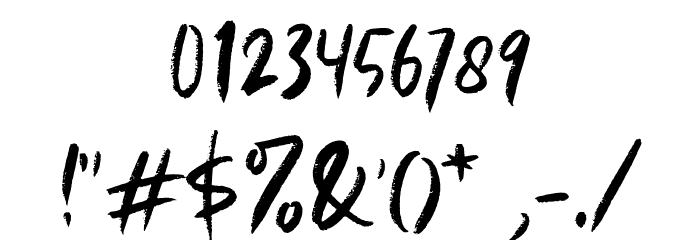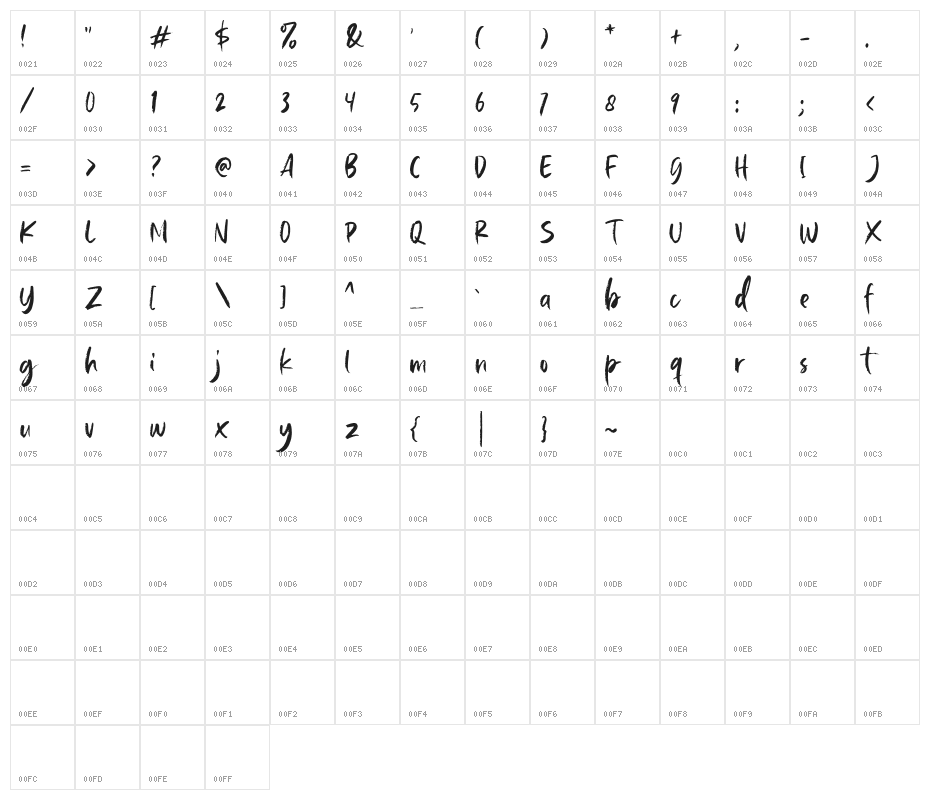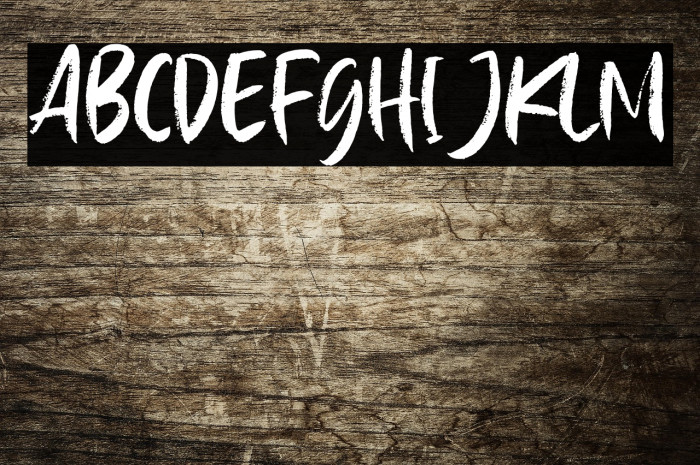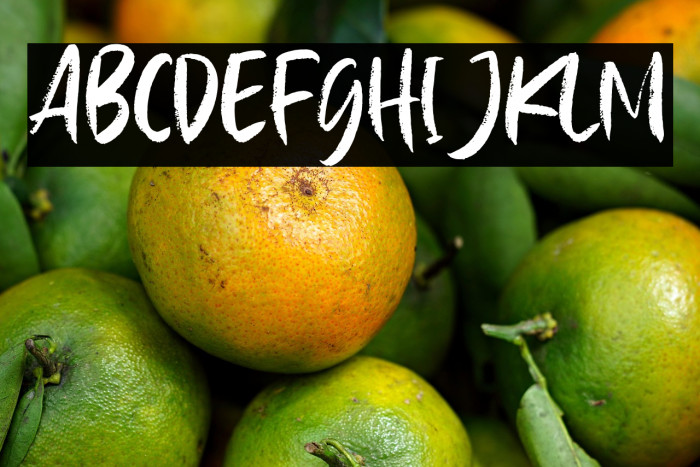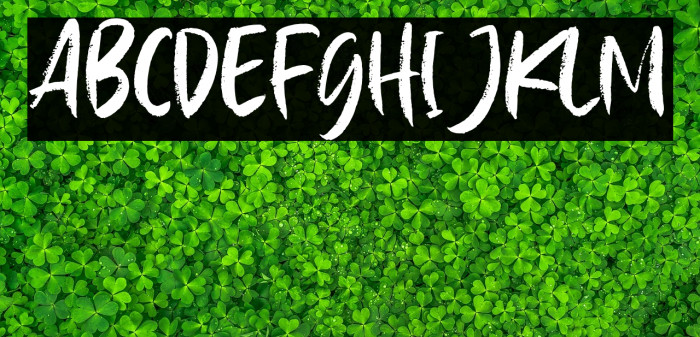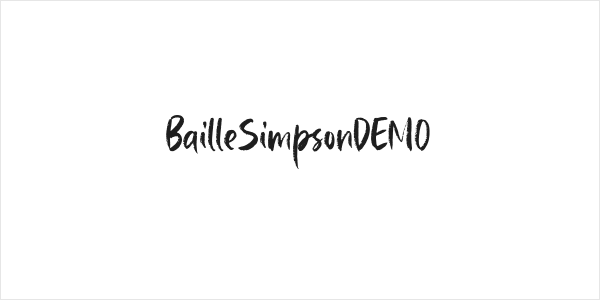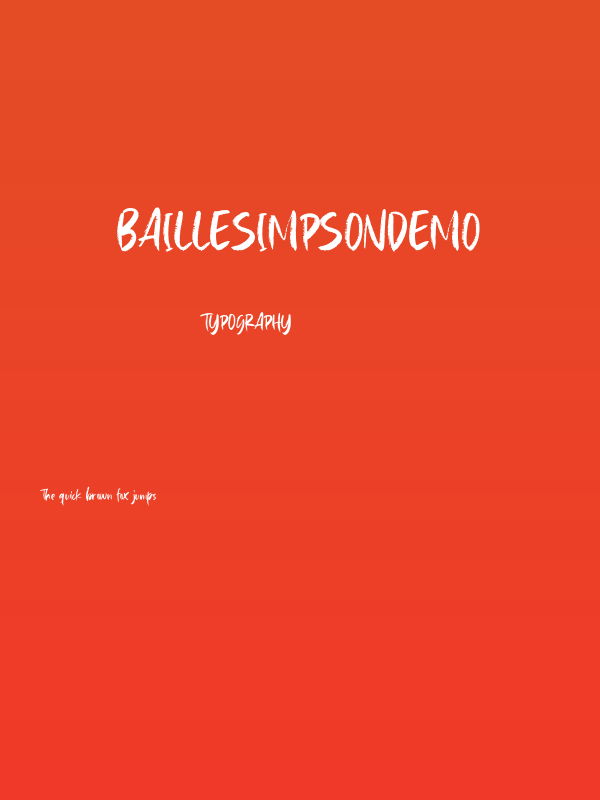
BailleSimpsonDEMO Font
BailleSimpsonDEMO Description
This font exudes a bold, expressive style with a hand-painted appearance. The strokes are dynamic and energetic, giving each character a sense of movement and personality. The uppercase letters are tall and commanding, while the lowercase letters maintain a consistent flow, adding to the font's overall cohesiveness. The numbers and special characters follow the same artistic style, ensuring uniformity across all elements. The texture of the strokes suggests a brush-like effect, adding depth and a tactile quality to the design. This font is perfect for projects that require a personal, artistic touch.